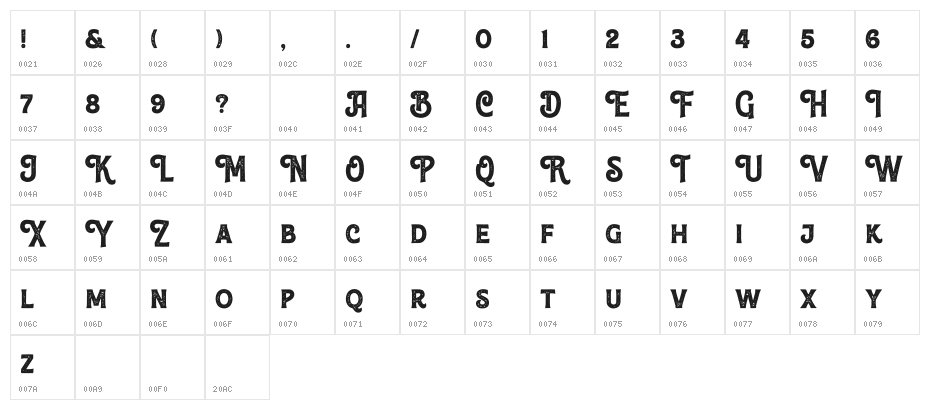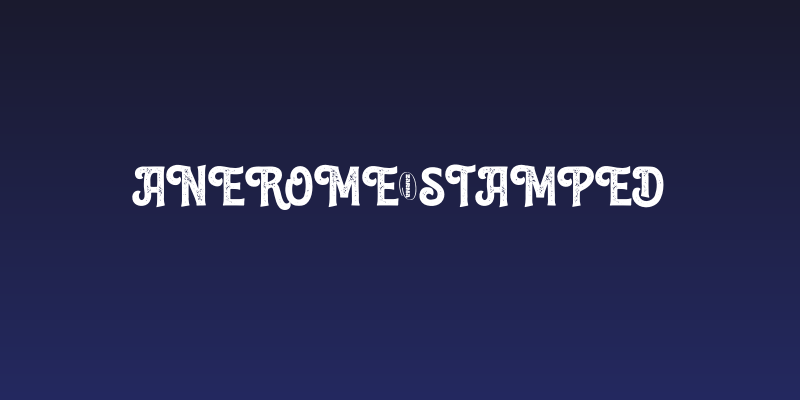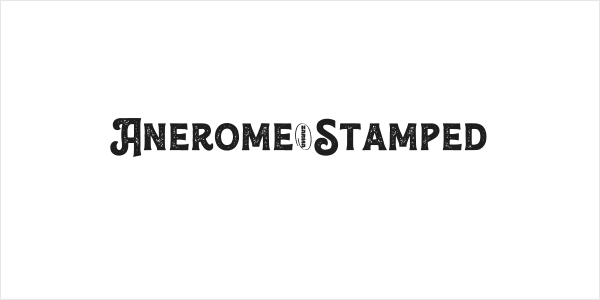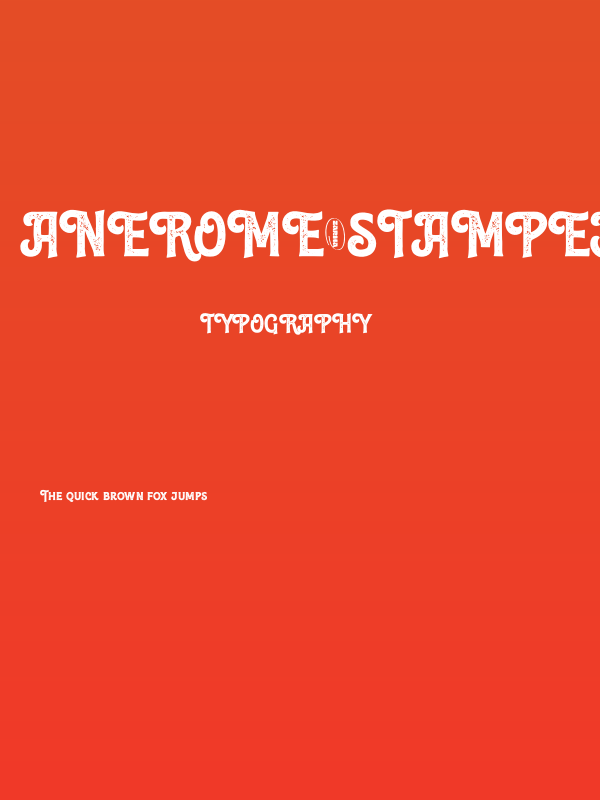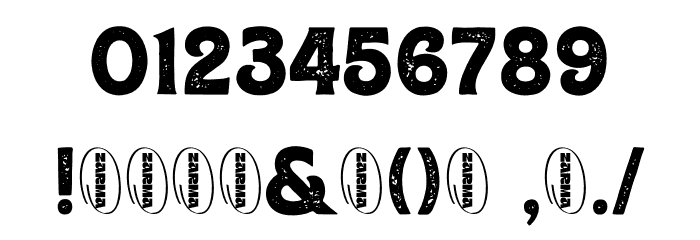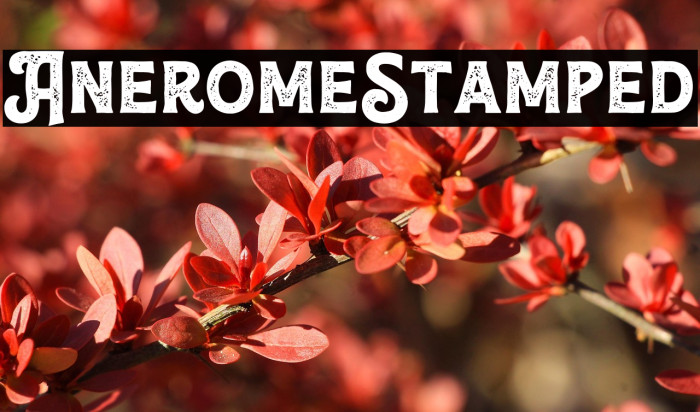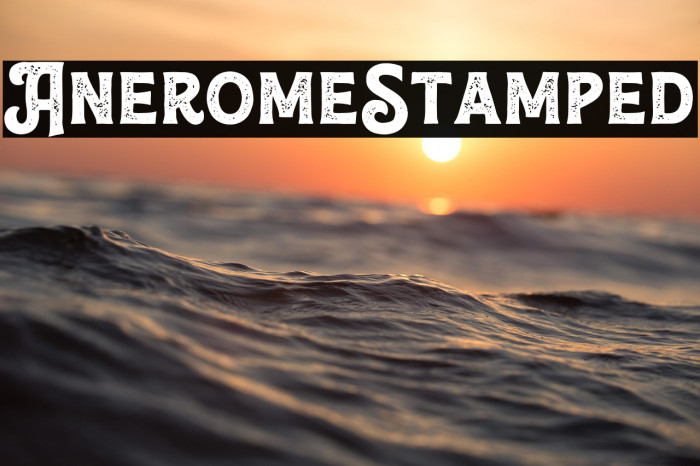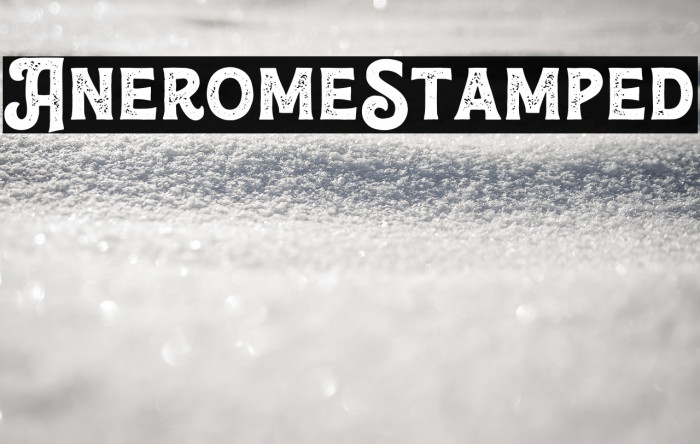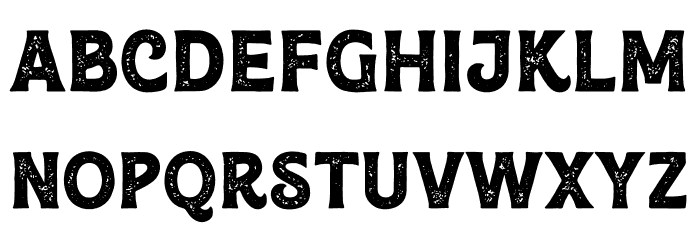
Anerome-Stamped Font
Anerome-Stamped Description
This font features a bold and decorative style with a stamped texture, giving it a rugged and vintage appearance. The uppercase and lowercase letters are designed with a playful yet sturdy look, making them suitable for eye-catching designs. The numbers and special characters maintain the same textured effect, ensuring consistency across all elements. The font's unique style is ideal for projects that require a touch of nostalgia or a handcrafted feel. Its boldness and distinctive texture make it stand out, perfect for creating impactful headlines or logos.
| Proposed Projects | Ideal for vintage-themed posters, logos, branding, and packaging designs. |